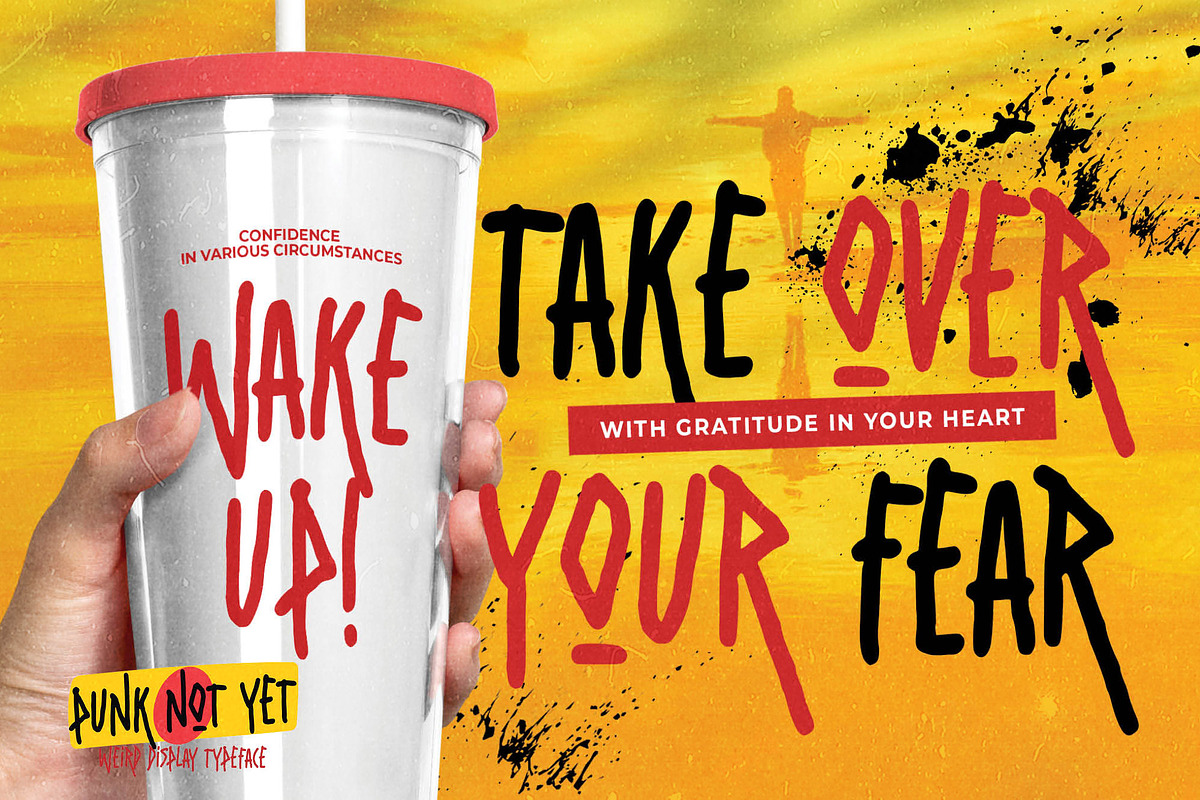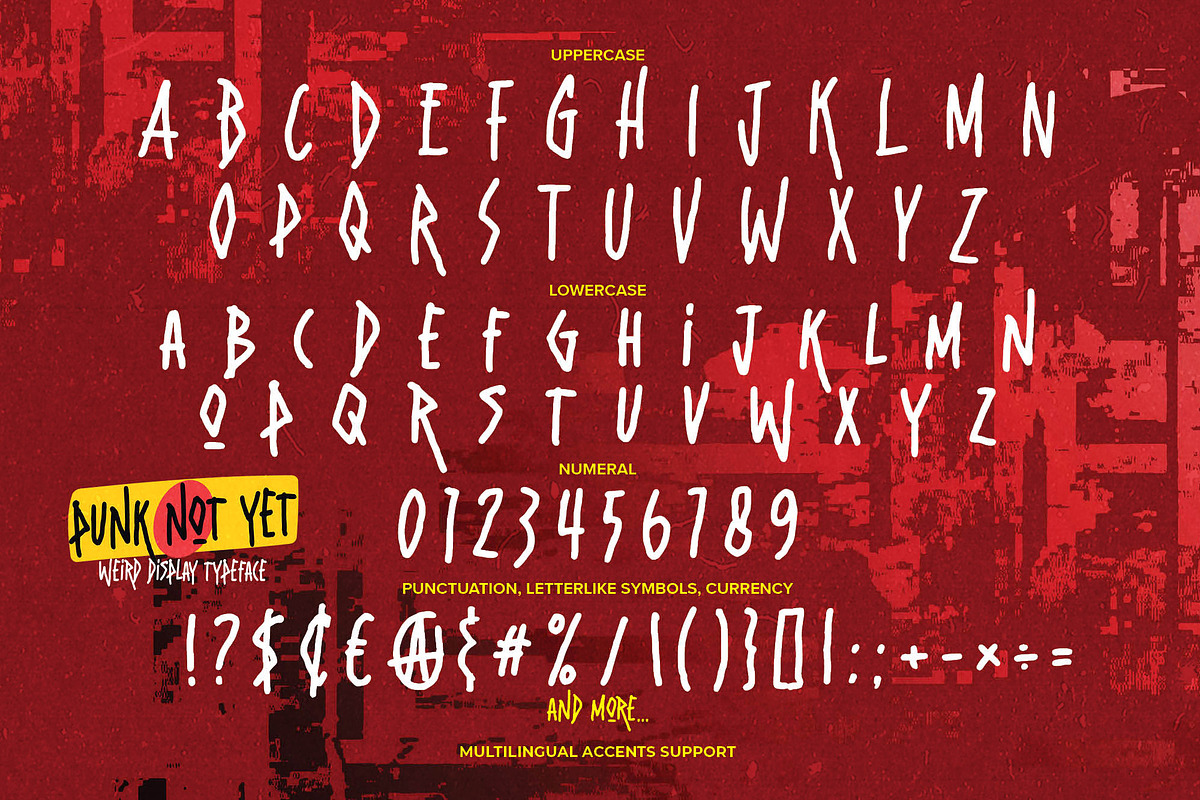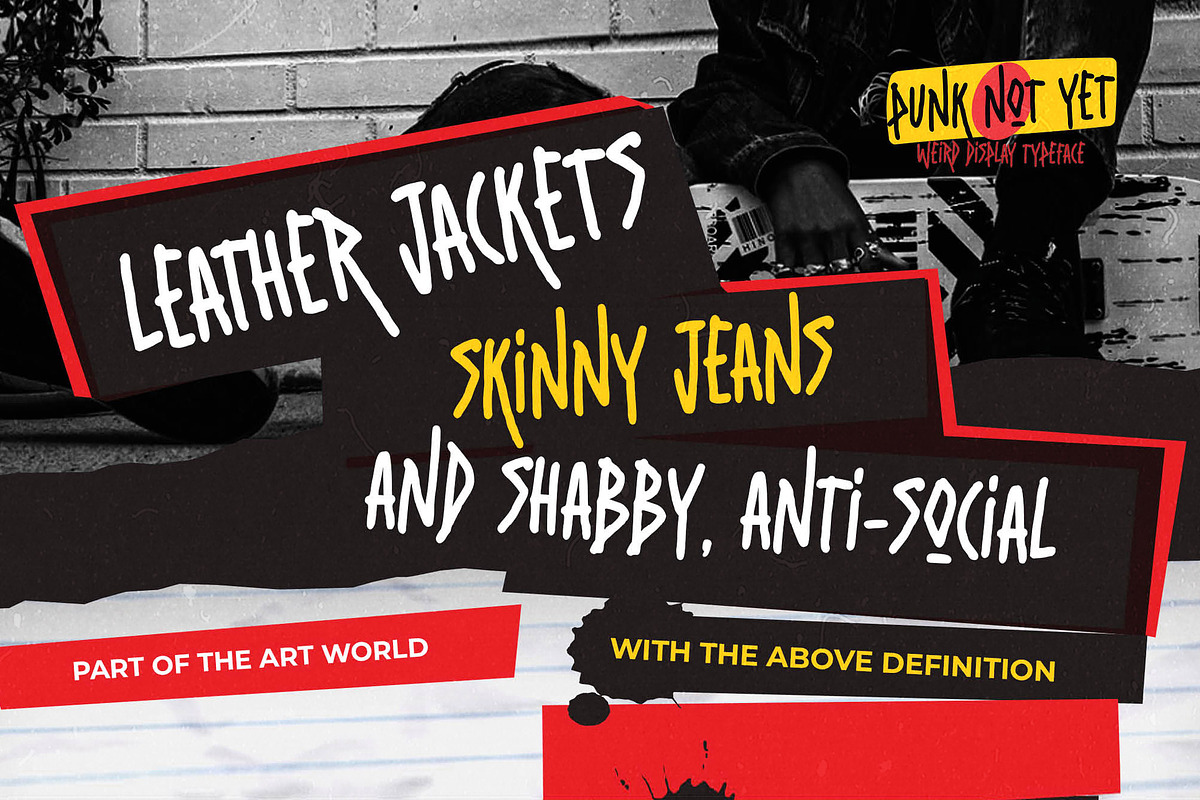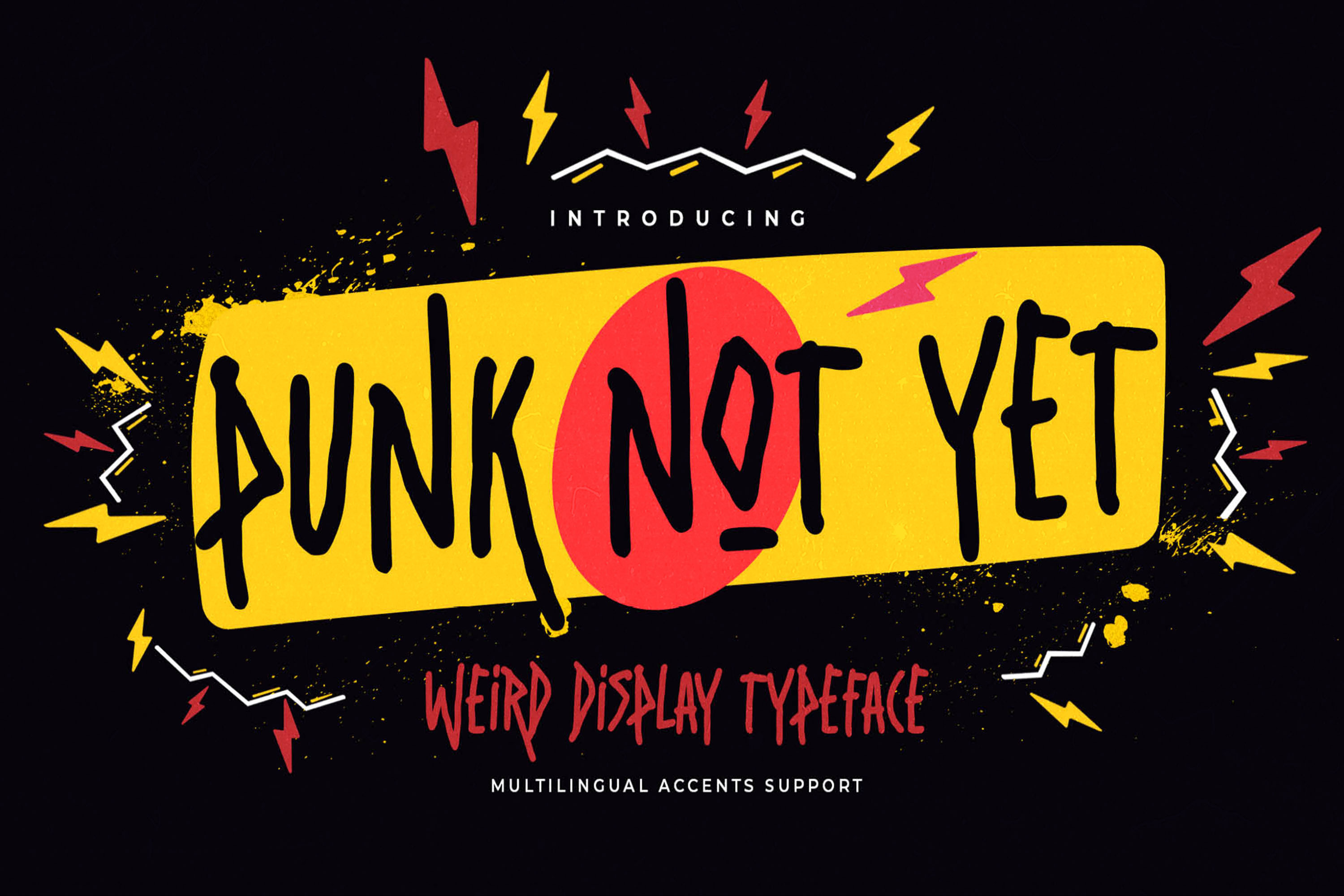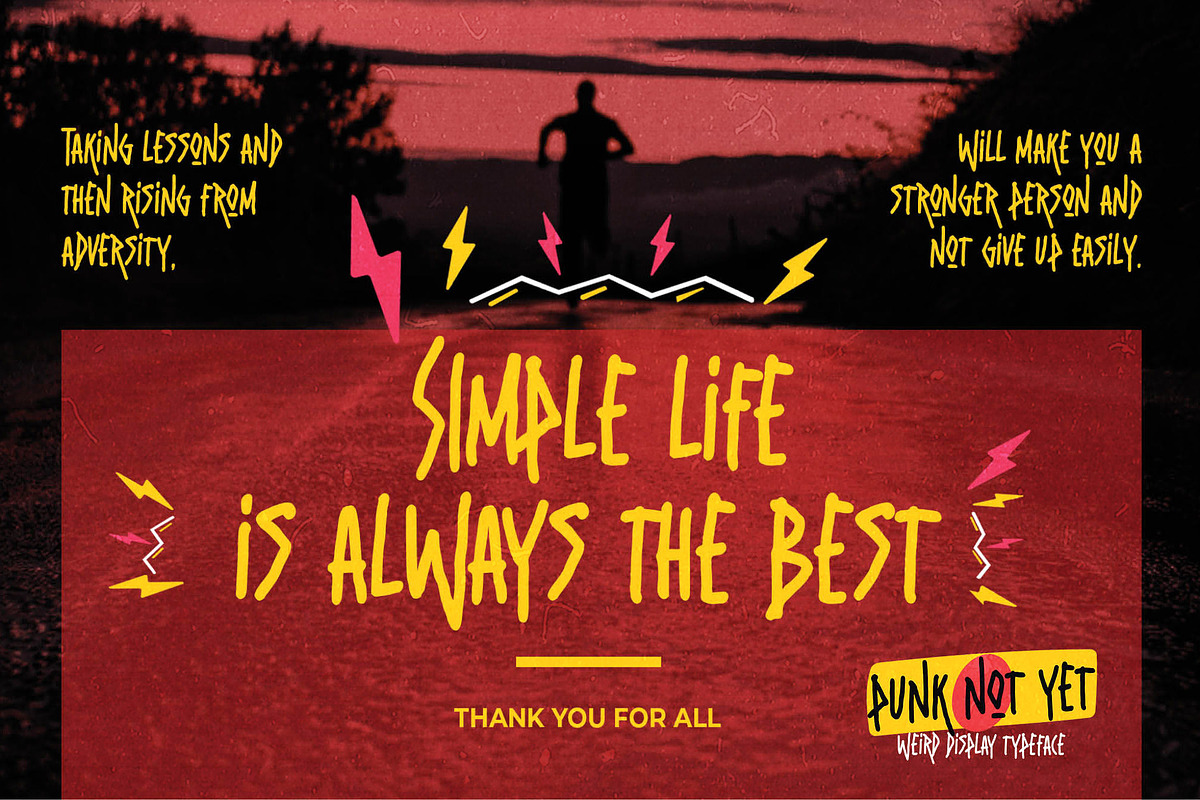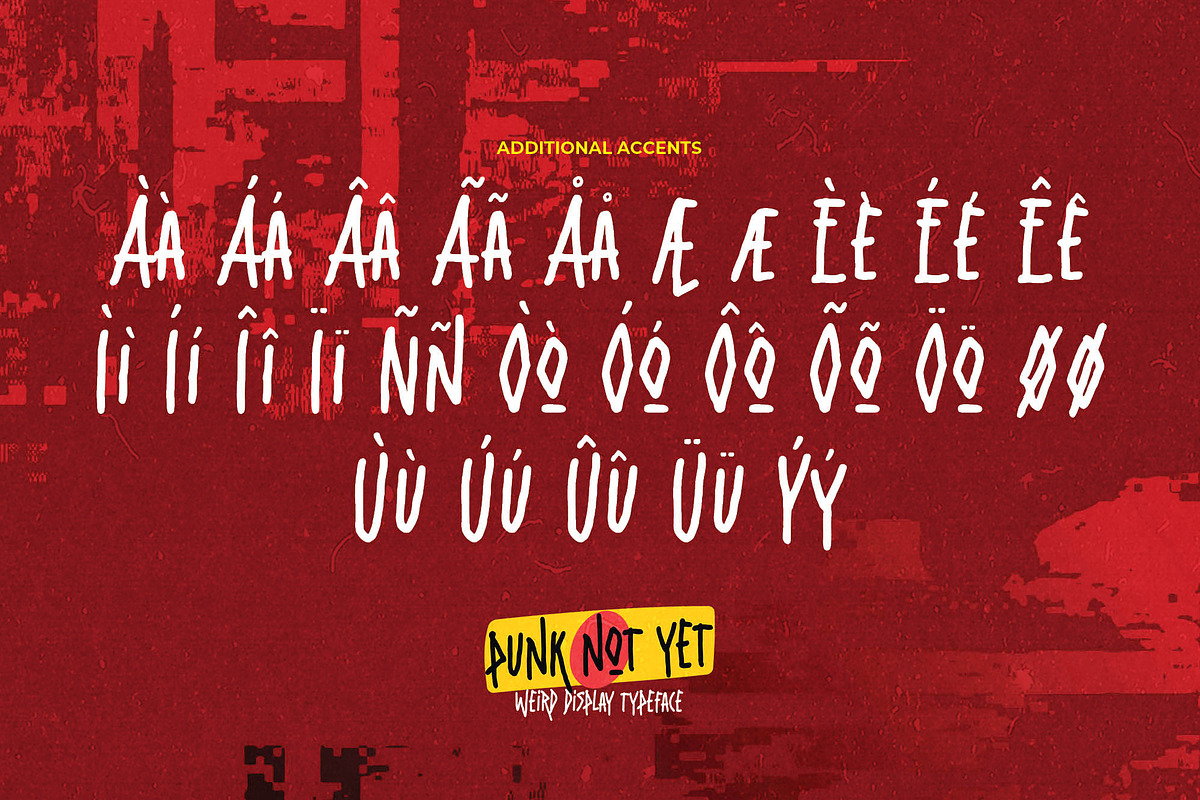
Punk Not Yet – Weird Typeface
Punk Not Yet is a chaotic, quirky, and unapologetically weird display typeface crafted with bold strokes and unpredictable shapes. Designed with a raw, rebellious attitude, this font brings loud energy, messy charm, and a punch of visual noise to any layout. Its irregular letterforms, playful distortions, and hand-drawn punk aesthetic make Punk Not Yet perfect for designs that demand edge, attitude, and a beautifully unpolished style. Loud, messy, and full of personality this typeface embraces imperfection in the best way possible.
Great For • music posters, punk-themed artwork & underground visuals • festival titles, event graphics & merchandise • edgy branding with a rebellious tone • street-style designs & youthful campaigns • zines, DIY projects, and experimental layouts • digital art with a chaotic or alternative aesthetic
Style & Feel
punk • weird • chaotic • bold • messy • rebellious • expressive